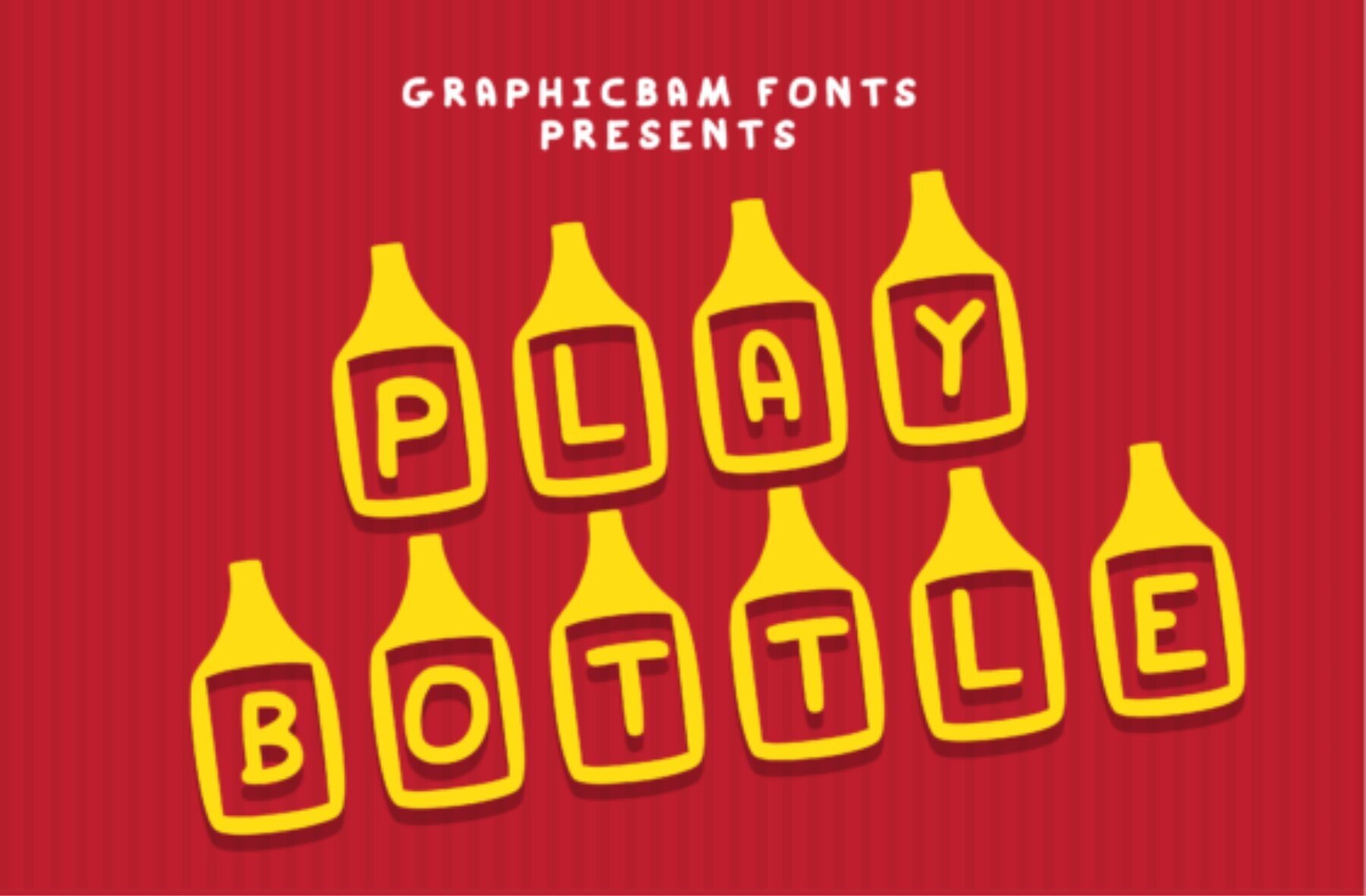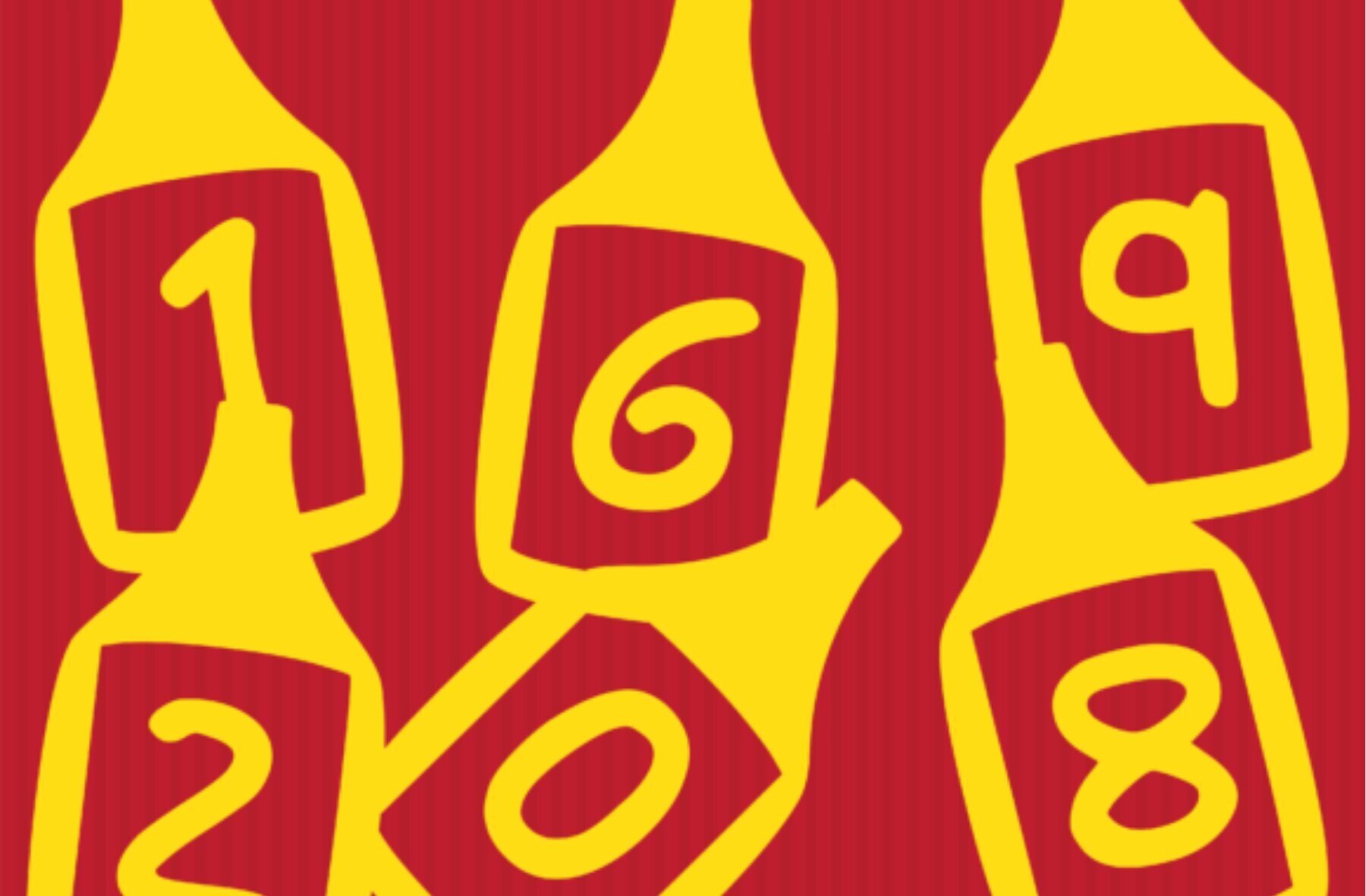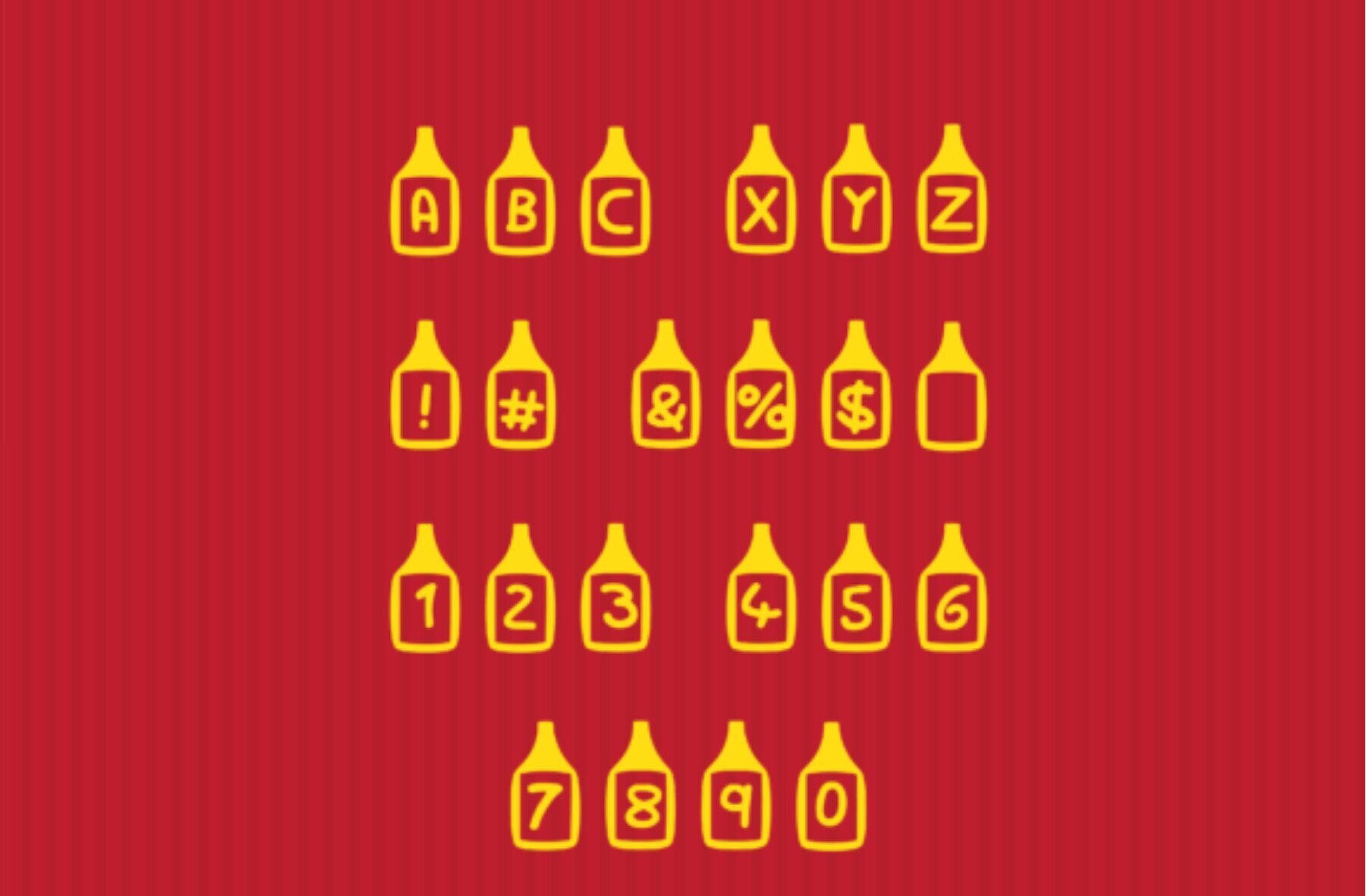
Play Bottle Font
Play Bottle
Play Bottle is a uniquely engaging decorative font that infuses your projects with a playful bottle-themed aesthetic. Perfect for those seeking to bring a touch of whimsy and creativity to their graphic designs, this versatile typeface helps your concepts truly stand out. Whether you're designing for print or digital, its distinctive style adds a lively flair to any project.Play Bottle: Add Whimsy to Your Designs
Why Choose Play Bottle?